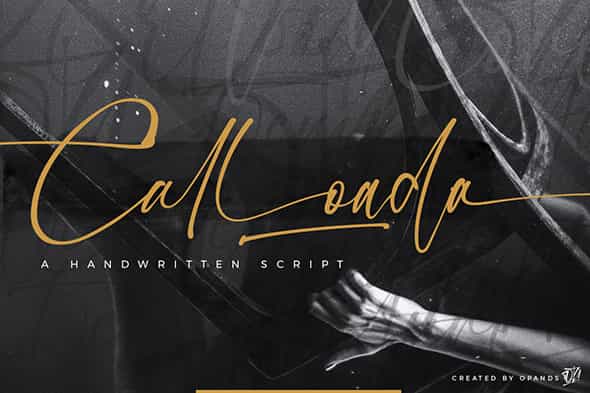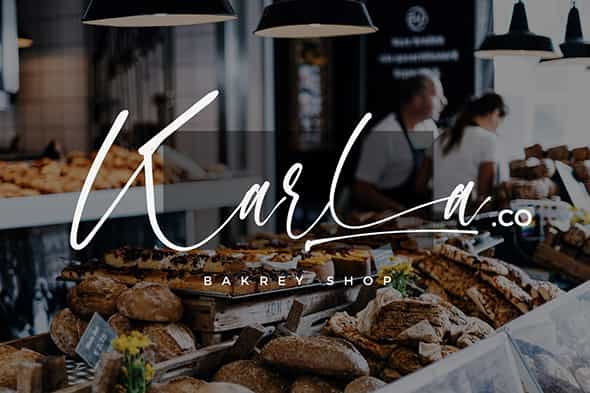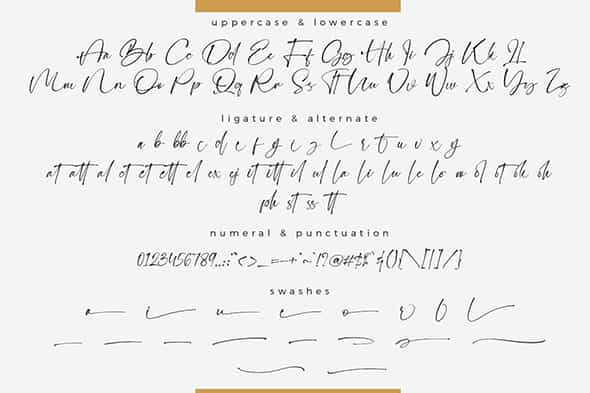
Calloada can be described as an extremely elegant and comfortable handwritten script font. The font is PUA encoded, which means that you have access to all the characters and washes you need with ease! It has a different baseline and smooth lines, beautiful glyphs, and gorgeous alternates.Fall in the love with its nifty style and make stunning designs!